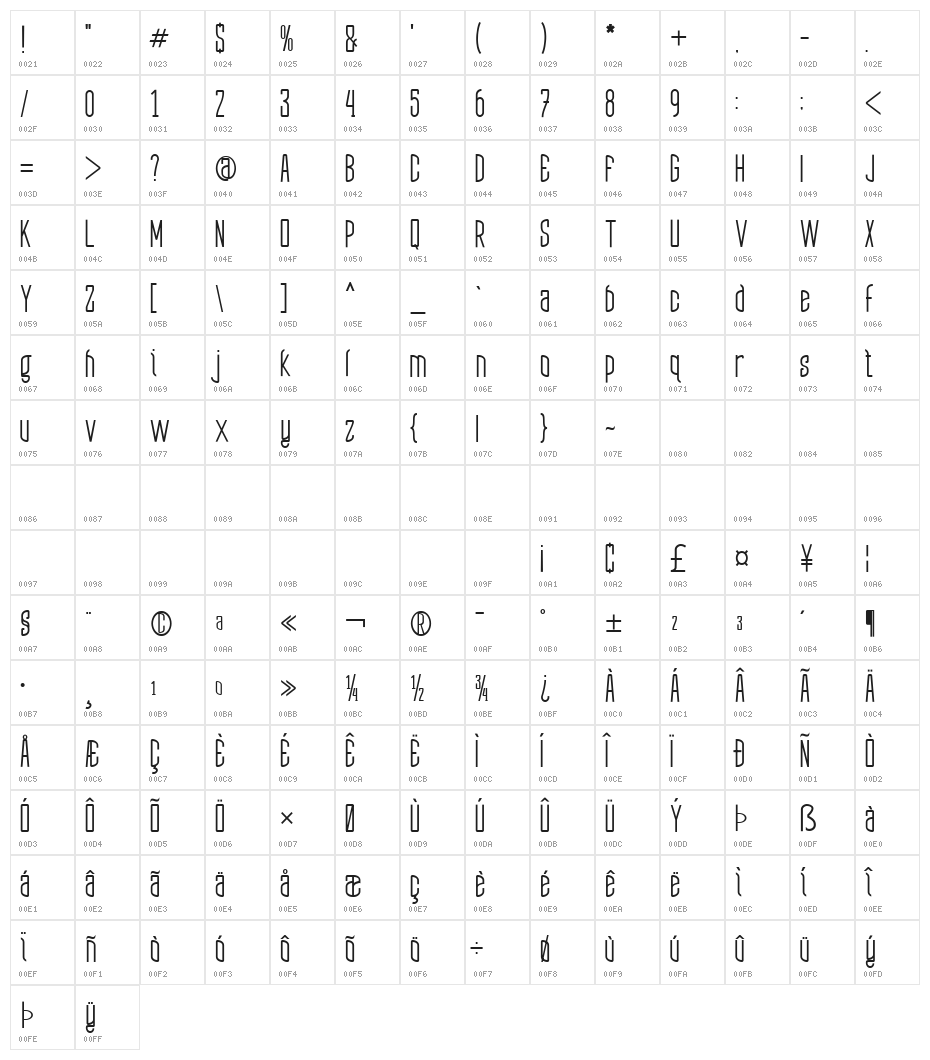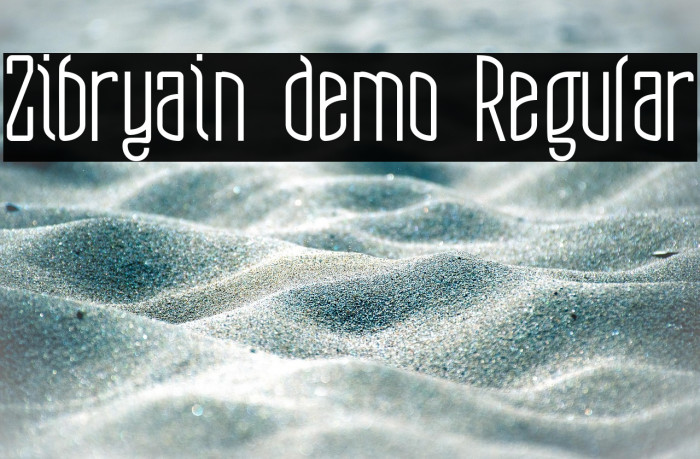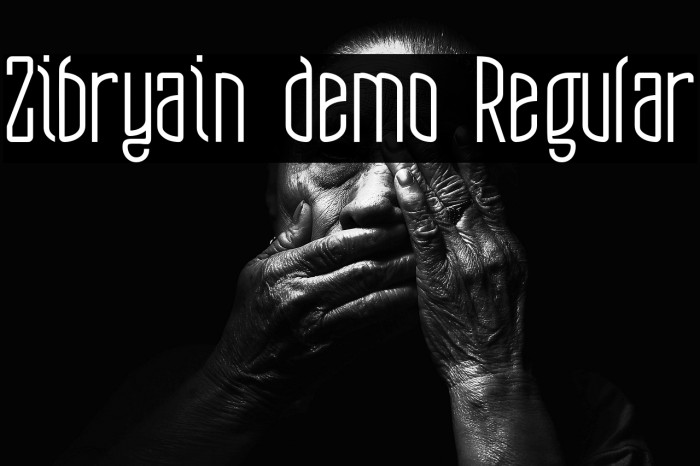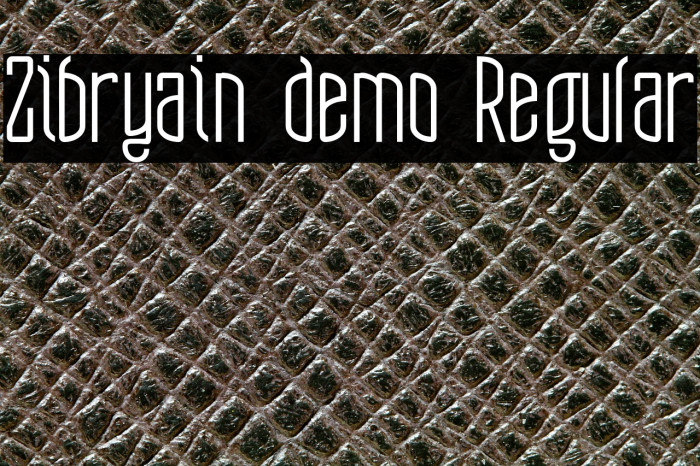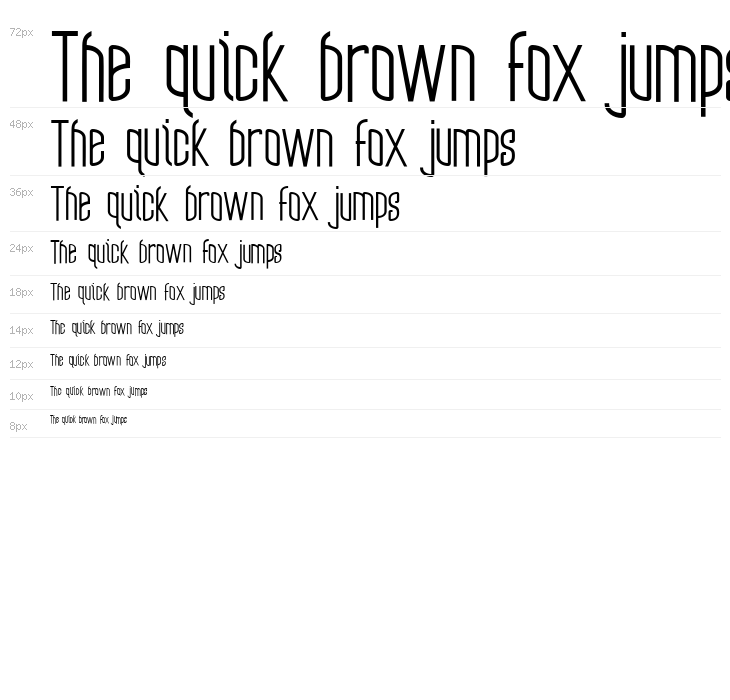
Zibryain demo Regular Font
Zibryain demo Regular Description
This font features a modern and sleek design with elongated characters and a narrow structure. The uppercase letters are tall and slim, while the lowercase letters maintain a consistent height, creating a uniform appearance. The numerals are similarly styled, with a clean and contemporary look. Special characters are designed to match the overall aesthetic, providing a cohesive feel across all elements. The font's thin lines and minimalistic style make it suitable for projects that require a modern and sophisticated touch.